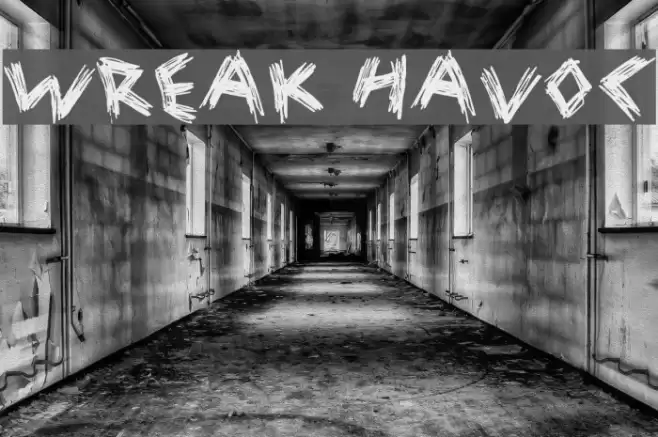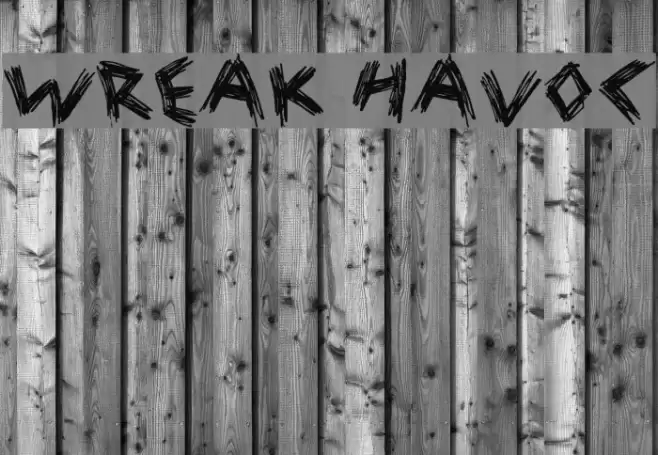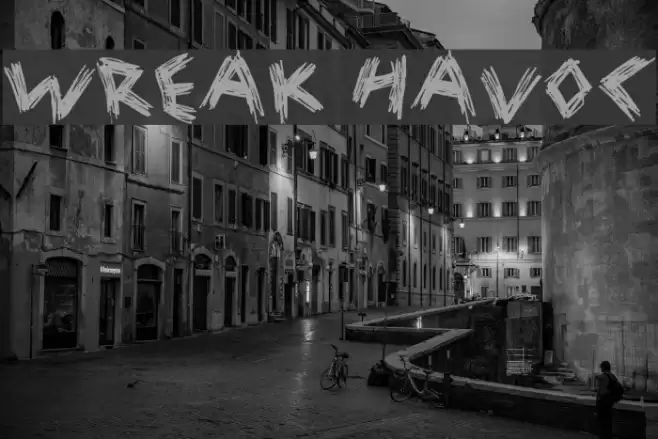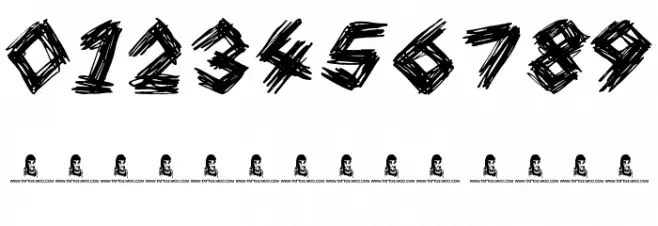
Wreak Havoc Font
Wreak Havoc Description
This font features a chaotic and energetic design, with each character appearing as if it has been sketched with rapid, overlapping strokes. The letters are bold and jagged, giving off a sense of movement and urgency. The uppercase and lowercase letters maintain a consistent style, with sharp angles and irregular lines that create a sense of controlled disorder. The numbers and special characters follow the same aesthetic, ensuring a cohesive look across all elements. This font is perfect for projects that require a raw, edgy feel, such as posters, album covers, or any design that aims to capture attention with its unconventional style.
A bold, chaotic font with jagged, sketch-like strokes from Uncategorized fonts.
- Proposed Projects: Ideal for edgy posters, album covers, and attention-grabbing designs.